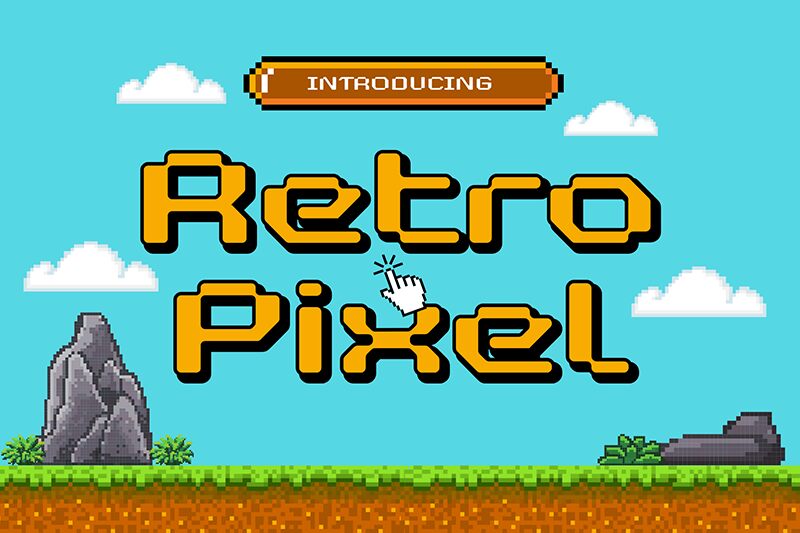
Retro Pixel
Retro Pixel font is a display digital typeface designed by Sronstudio. Expanded and structured, the font exhibits the two fundamental traits that mark its appearance as wide and squared. It grabs inspiration from not one but two recognizable distinct styles: the retro digital aesthetic utilized in early visual games, and geometric shapes.
Use Retro Pixel for your comics, mobile games, websites, posters, school projects, video thumbnails, book covers, board games packages or advertising purposes. This free blocky pixelated font is equally great in completely new graphic pieces and Renaissance artworks recreations.